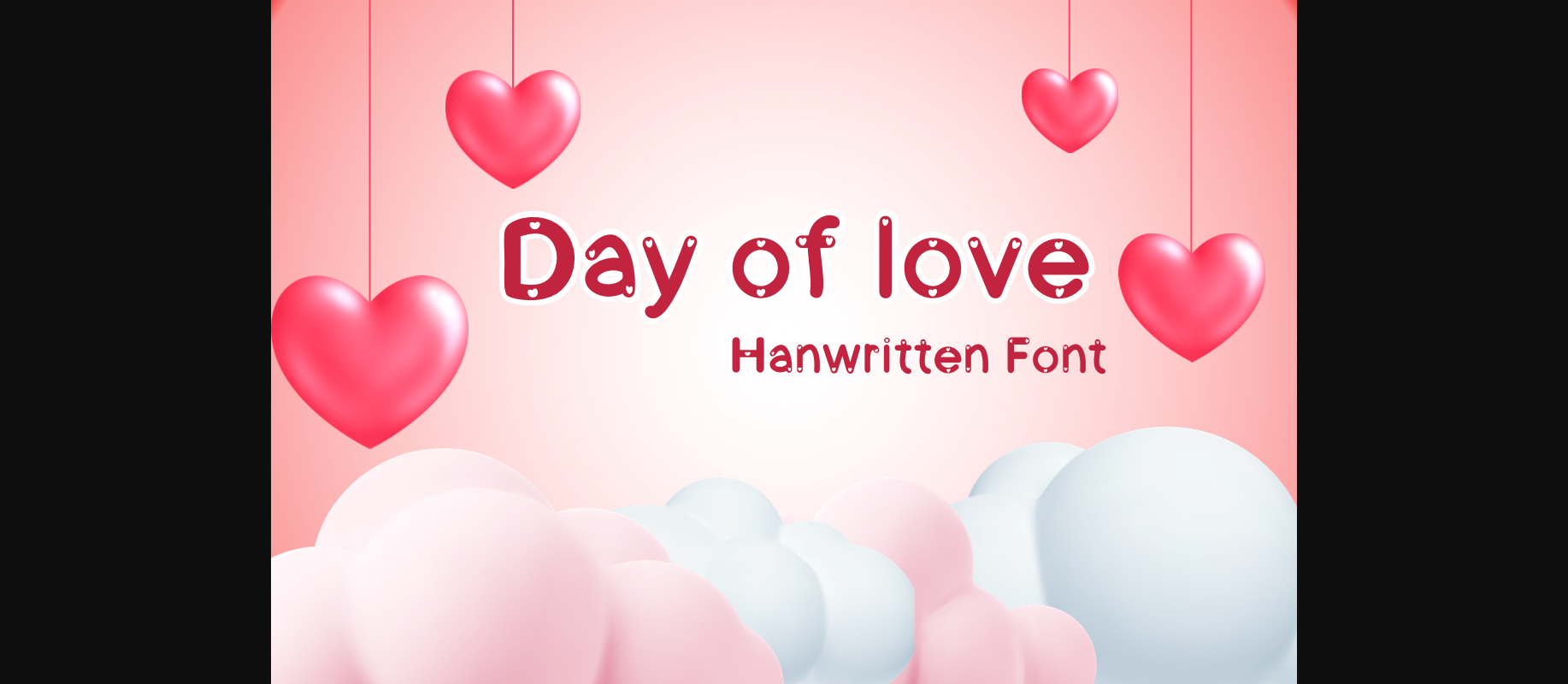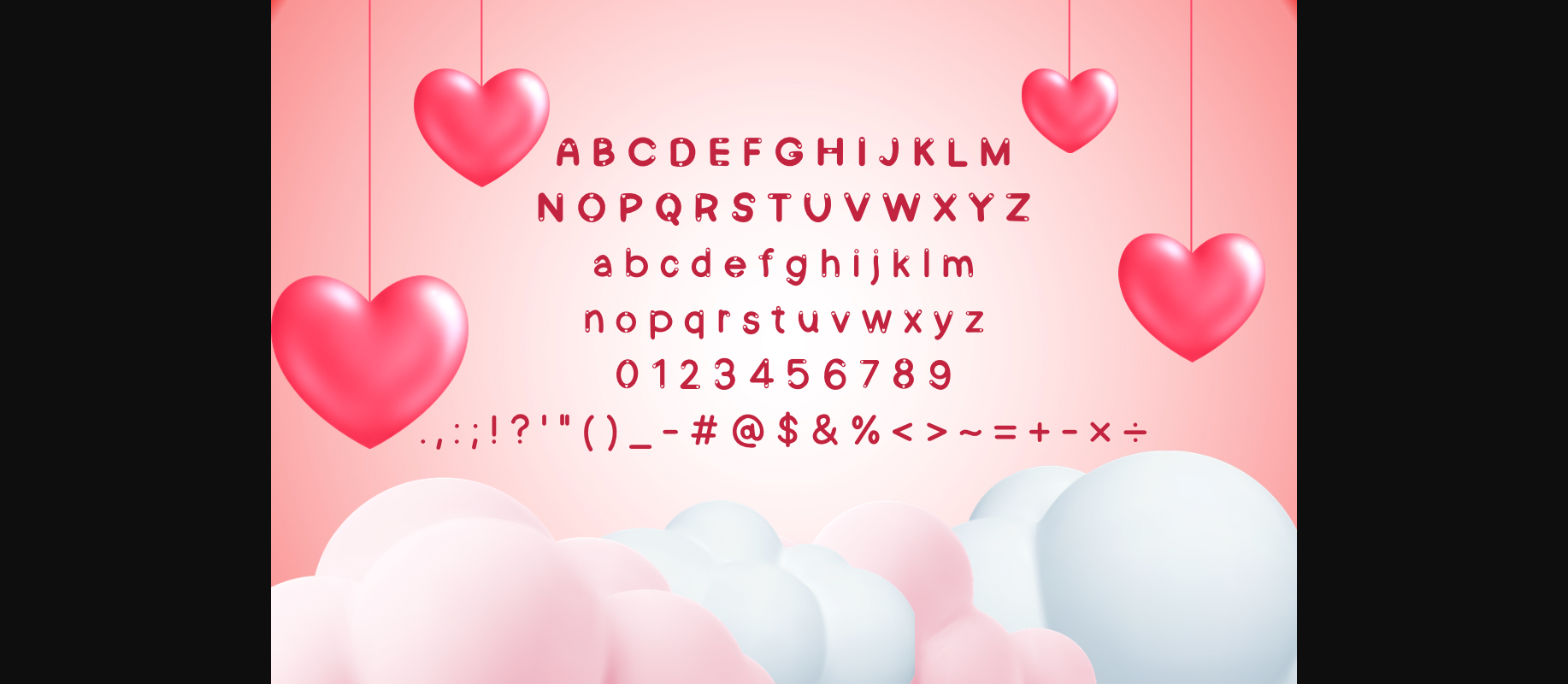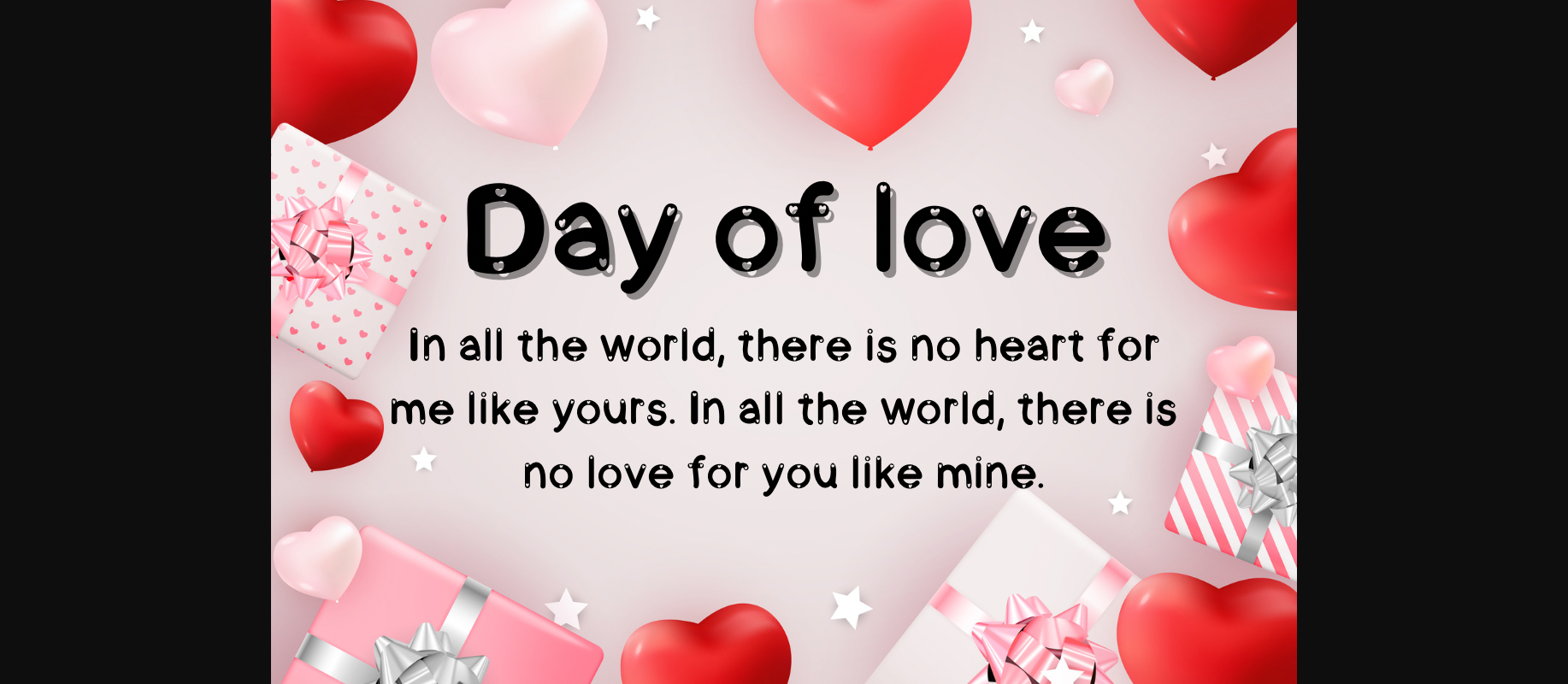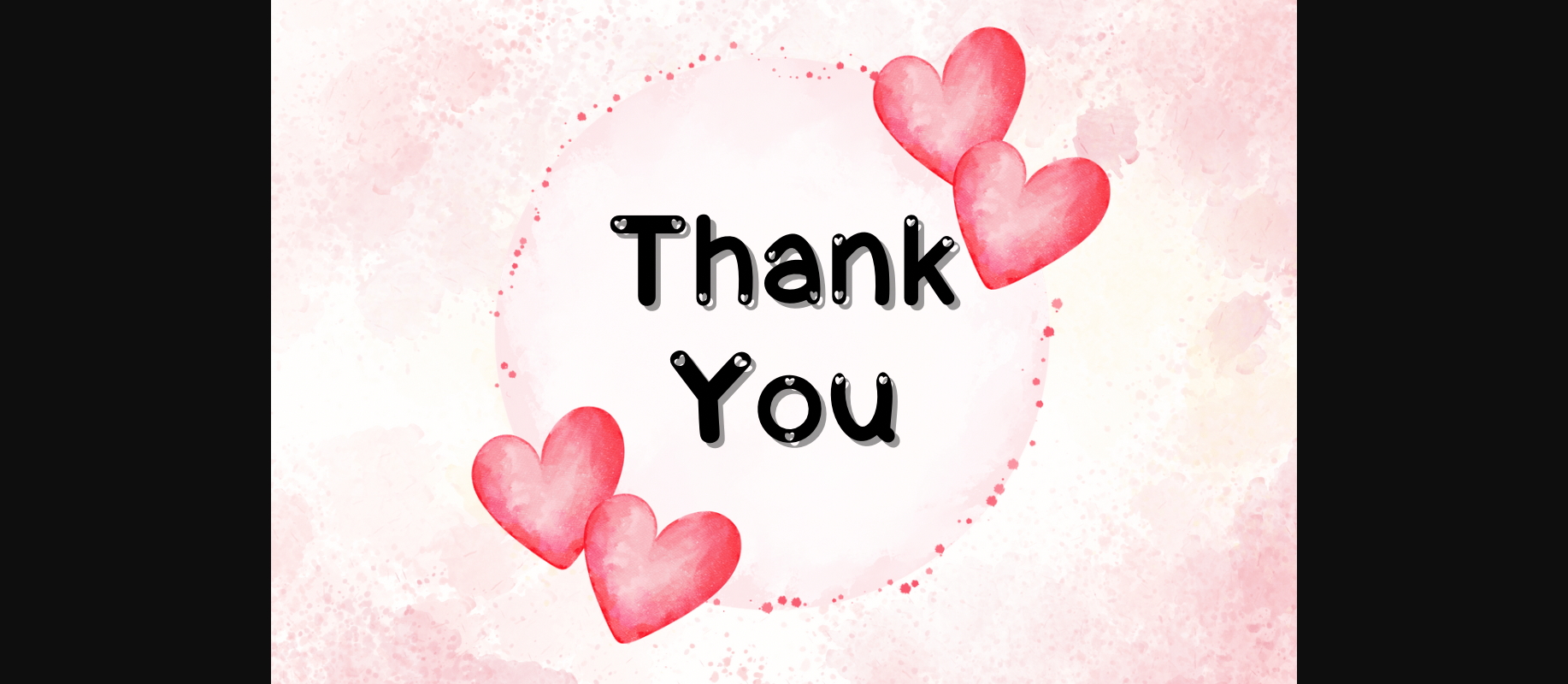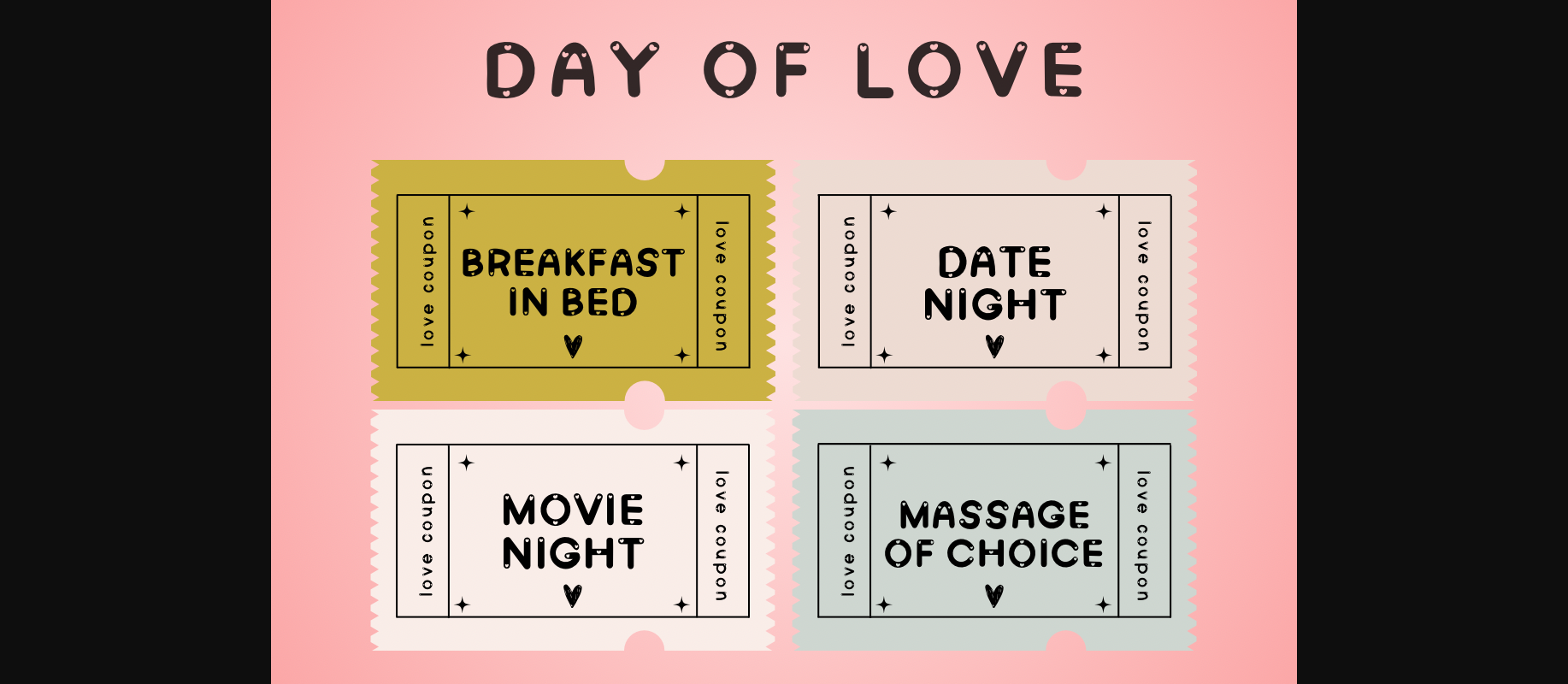
About Day of Love Font
Day of Love is a handwritten font. You can use it for taking notes, writing a diary, or making greeting cards. However, you can still use it for other designs such as banners content mugs cards shirts stationery social media posts, and more!